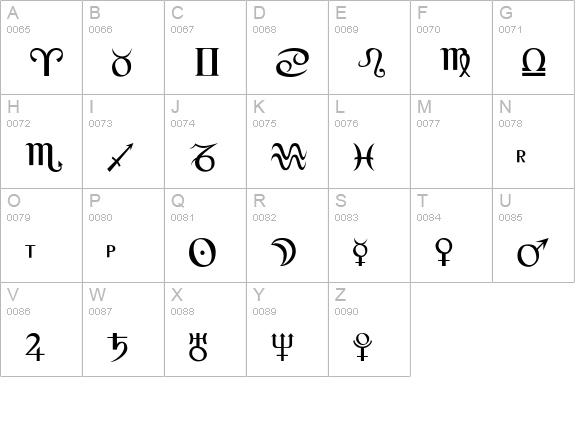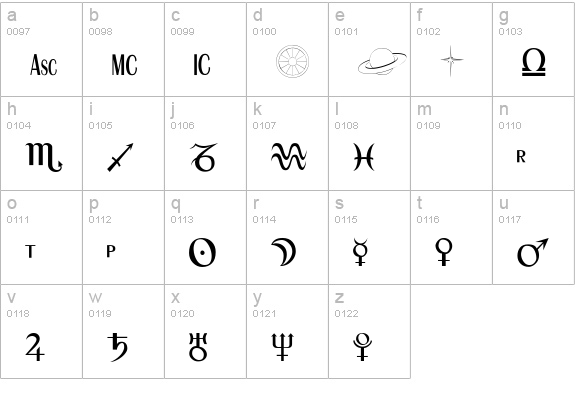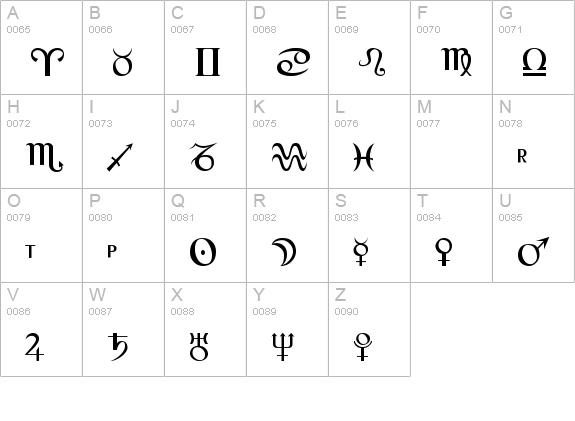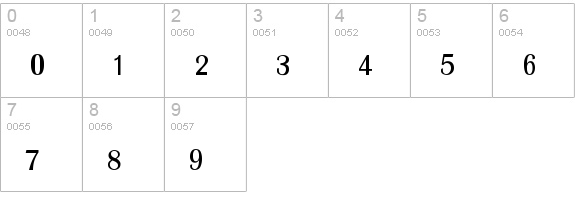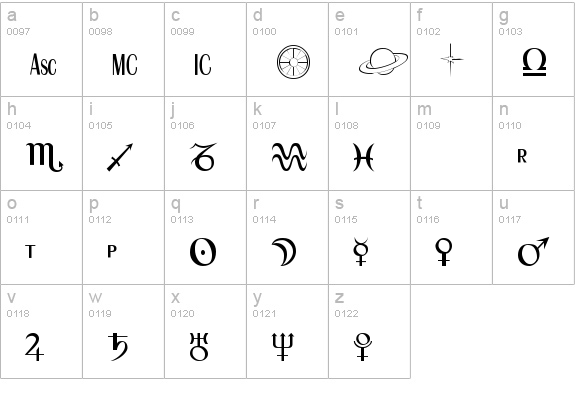
Astro-SemiBold is a sub-bold, structured variant in the Astro typeface family \xE2\x80\x94 well suited to sub-headlines and emphasised passages.
Introducing Astro-SemiBold font, a captivating and versatile typeface that exudes modernity and sophistication. Its sleek and bold design makes it ideal for a wide range of design projects, from branding to editorial design and everything in between. The sharp lines and strong presence of Astro-SemiBold font command attention and convey a sense of confidence and professionalism. What sets Astro-SemiBold font apart is not just its striking aesthetics, but also its versatility. Whether used in headlines, body text, or as a standout element in a design composition, this font shines in any context. Its clean and contemporary look makes it a perfect choice for creating impactful designs that leave a lasting impression. And the best part? Astro-SemiBold font is available for free download at FontsMarket.com. So go ahead and elevate your designs with this exceptional font that combines style, versatility, and accessibility all in one package. Let Astro-SemiBold font be the secret weapon in your design toolkit, ready to help you make a statement and stand out from the crowd.